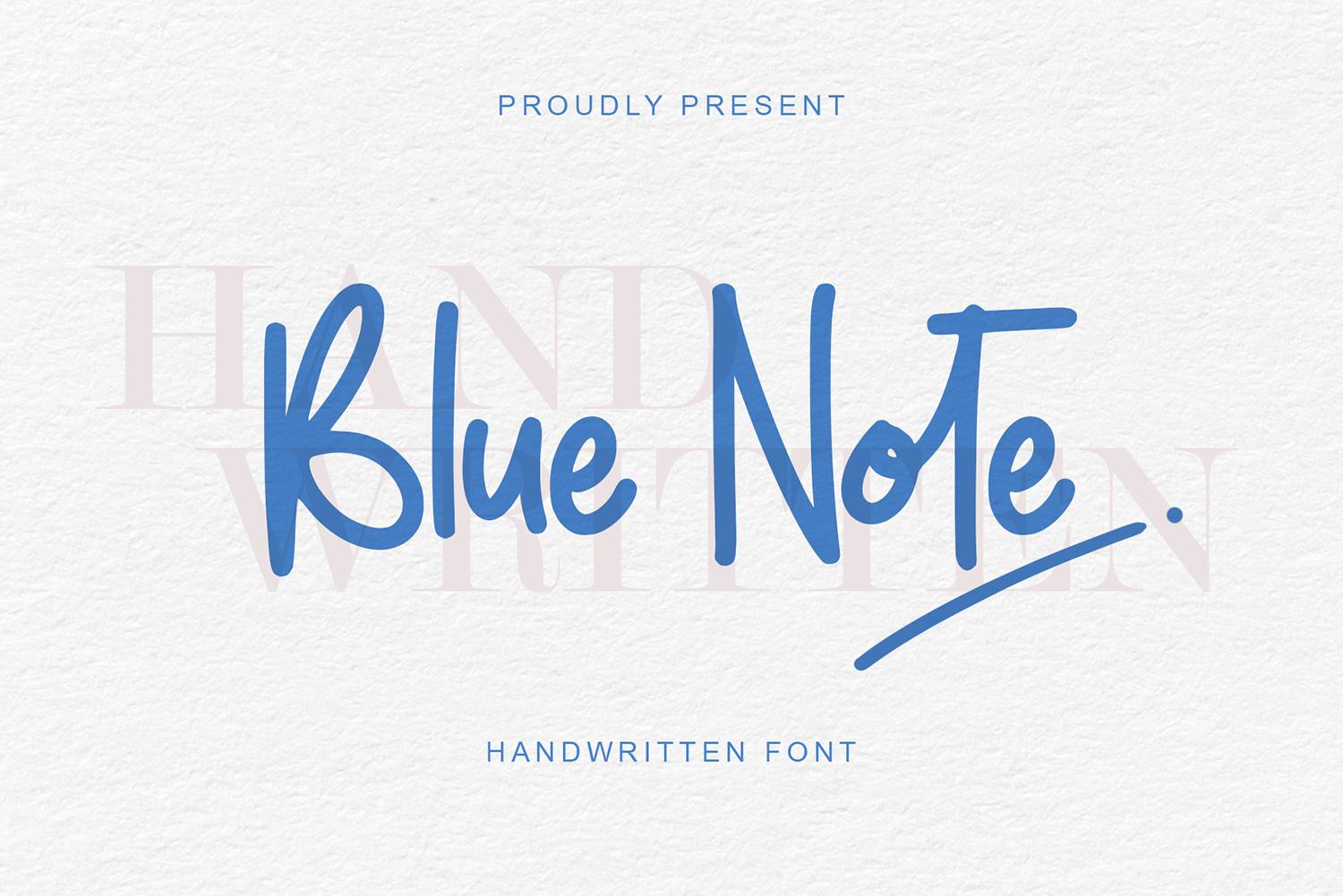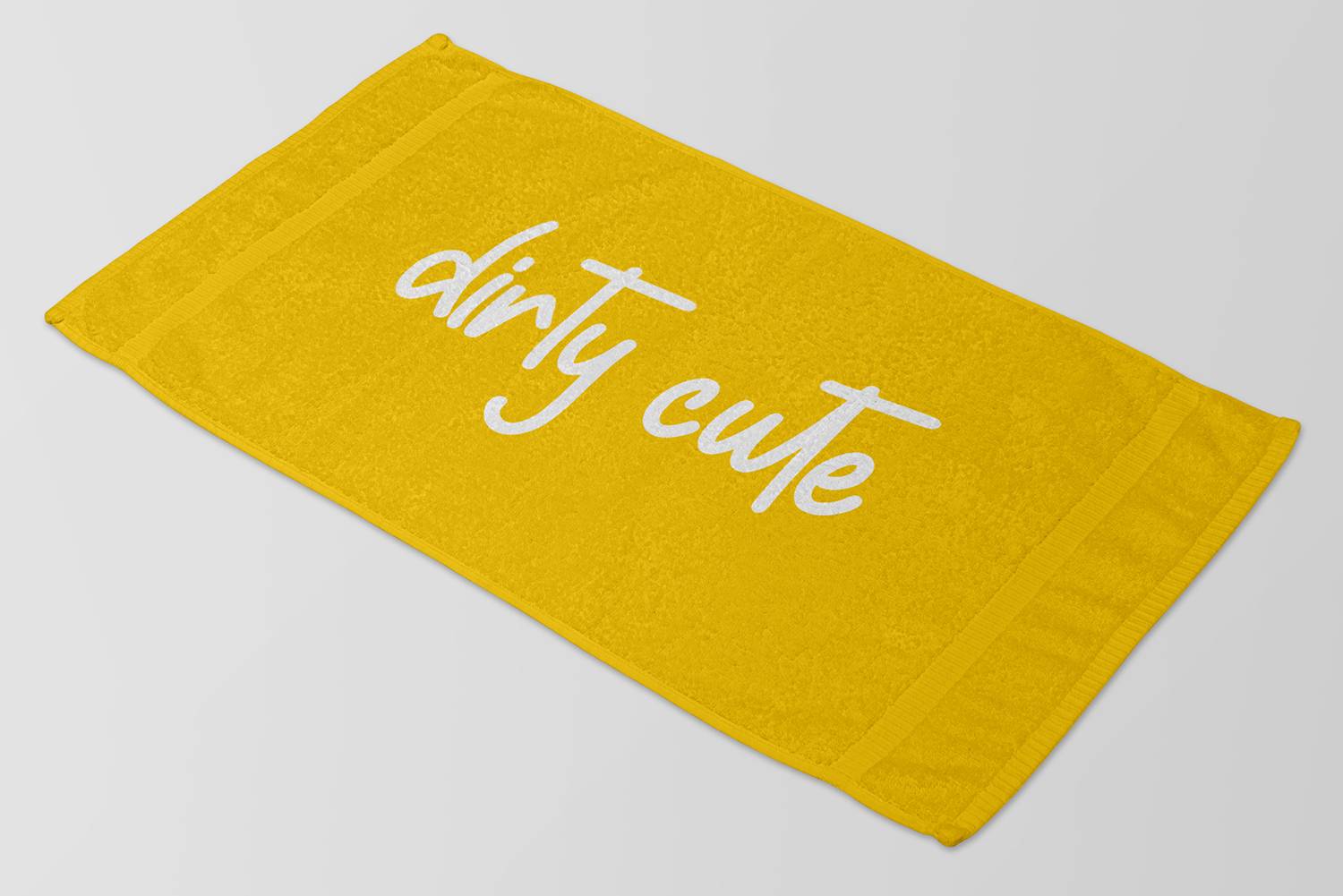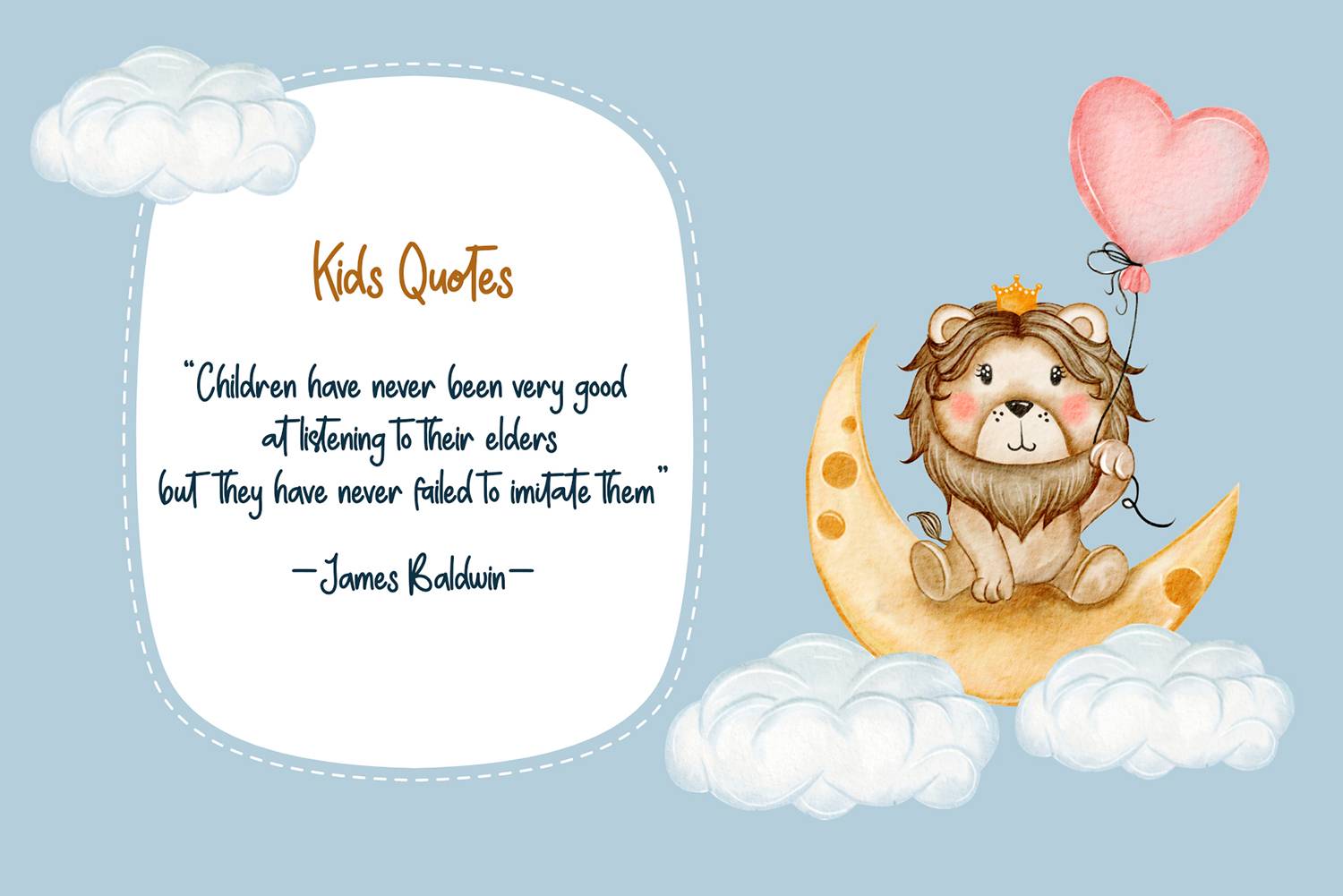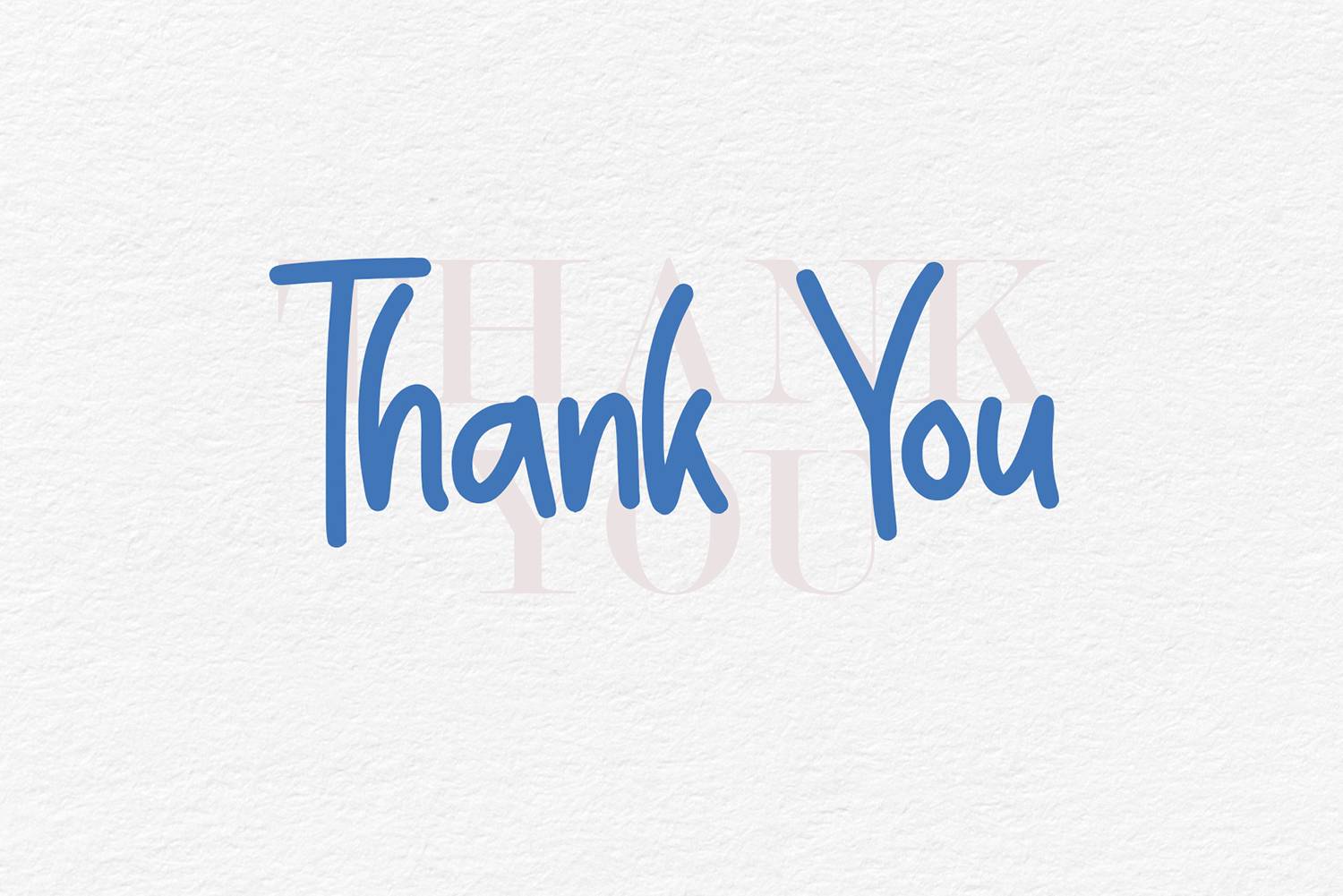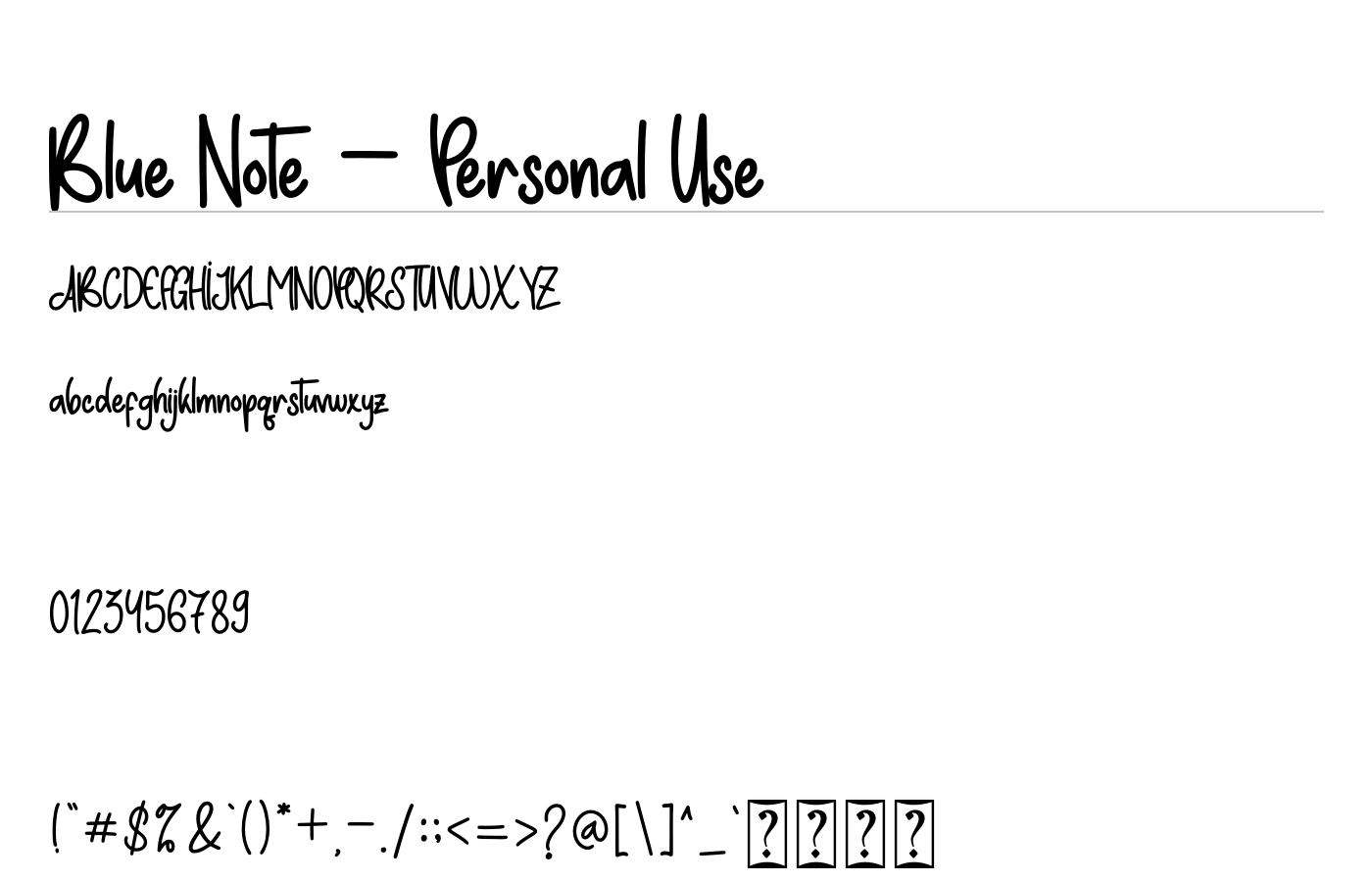
Blue Note is a casual, handwritten-style sans serif font with a playful and friendly vibe. Featuring tall, narrow letterforms with slight irregularities and a lively rhythm, it works well for informal designs like personal projects, greeting cards, or creative headlines where a warm, approachable feel is desired. This font’s unique character shapes and light weight make it ideal for adding personality without overwhelming the design.
Blue Note Font
About Blue Note Font
| Font family | Blue Note Font |